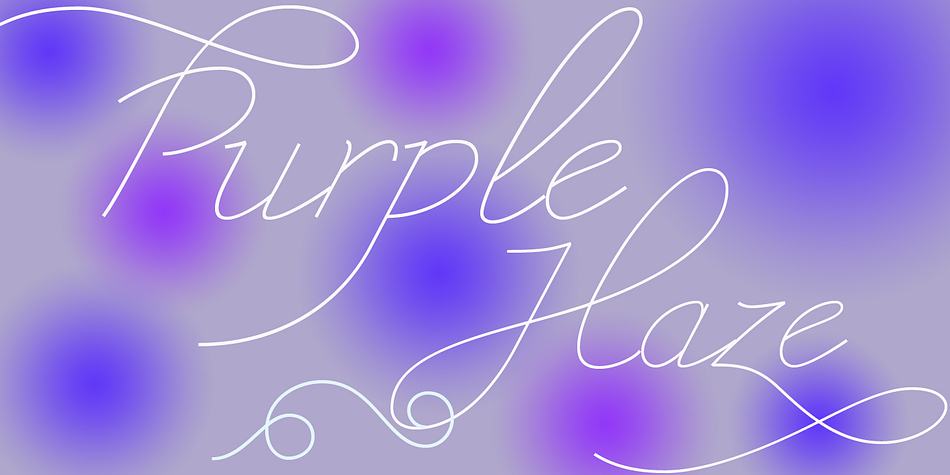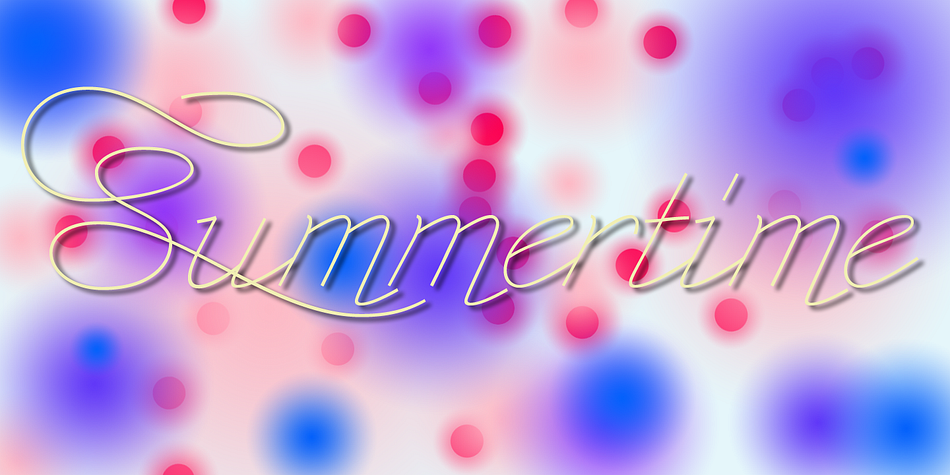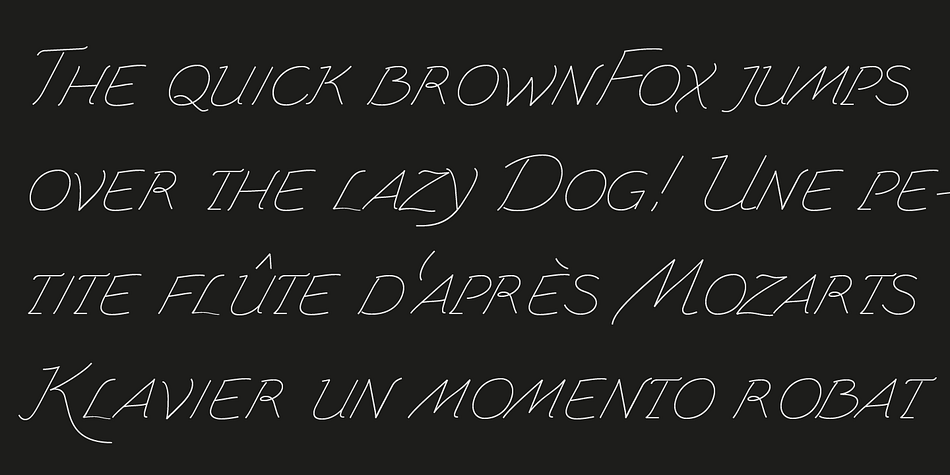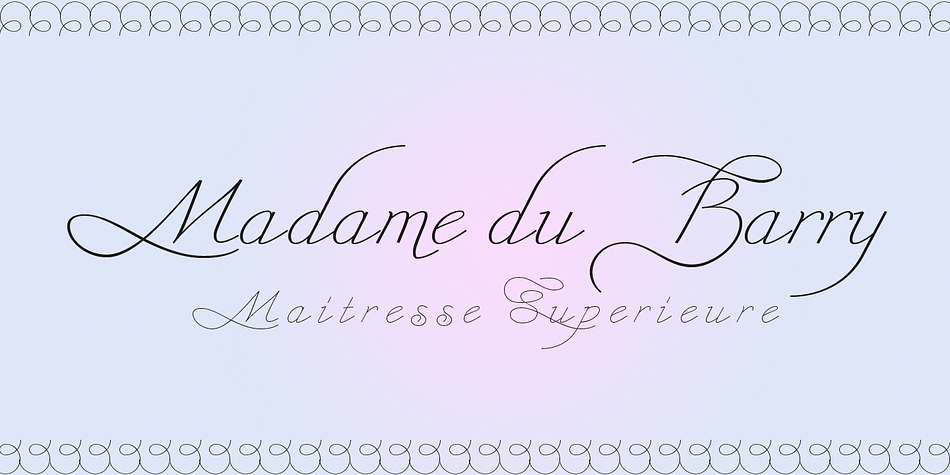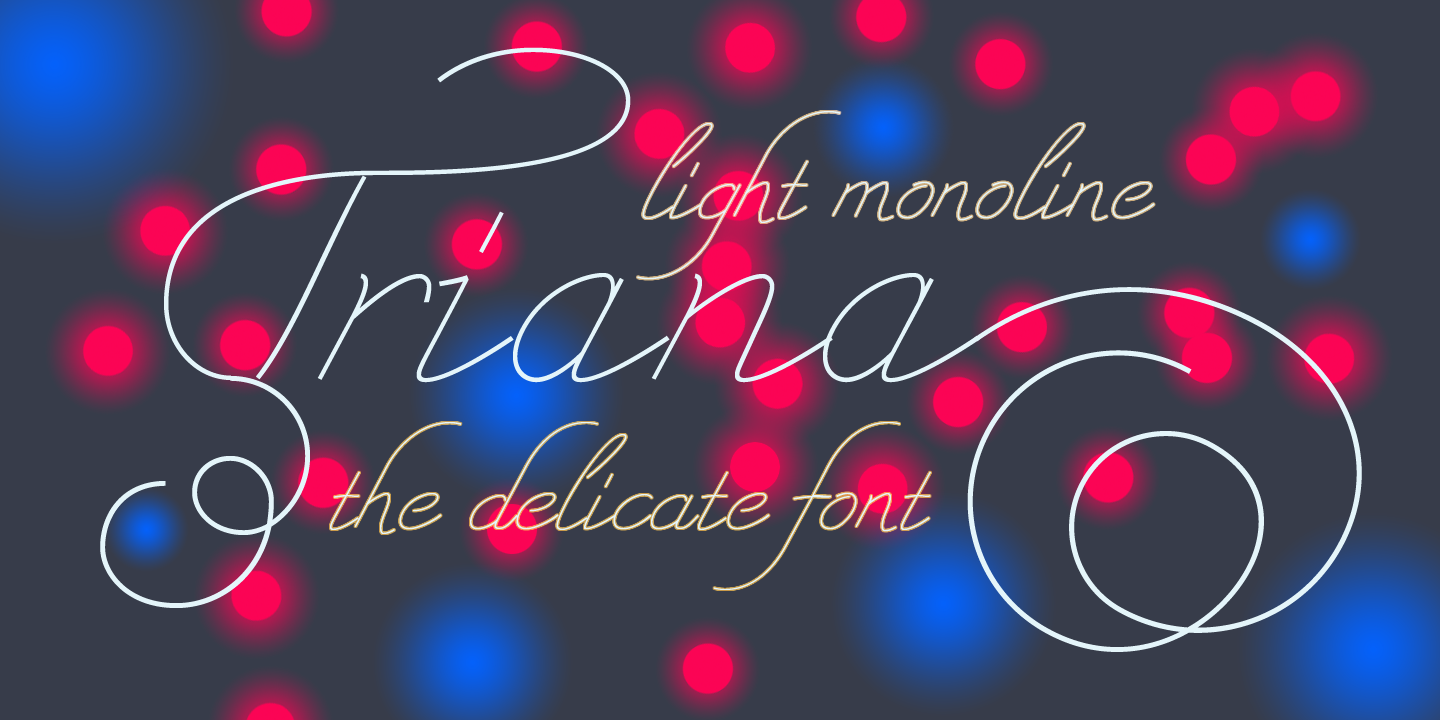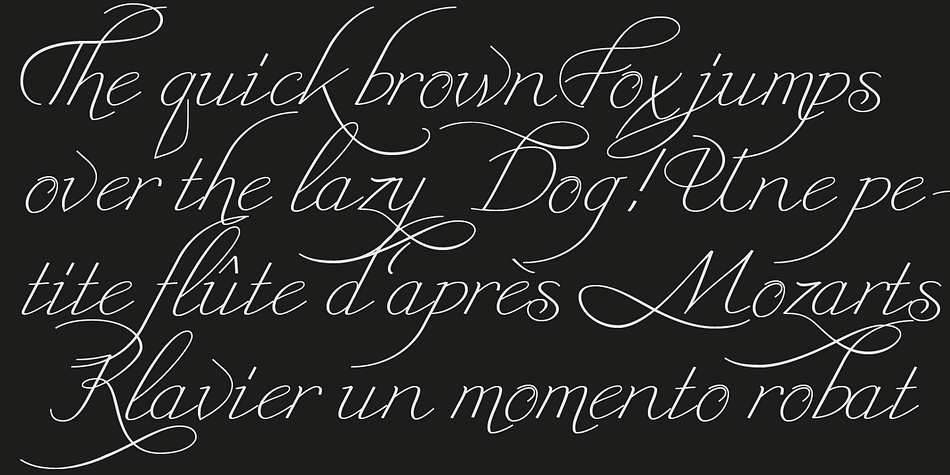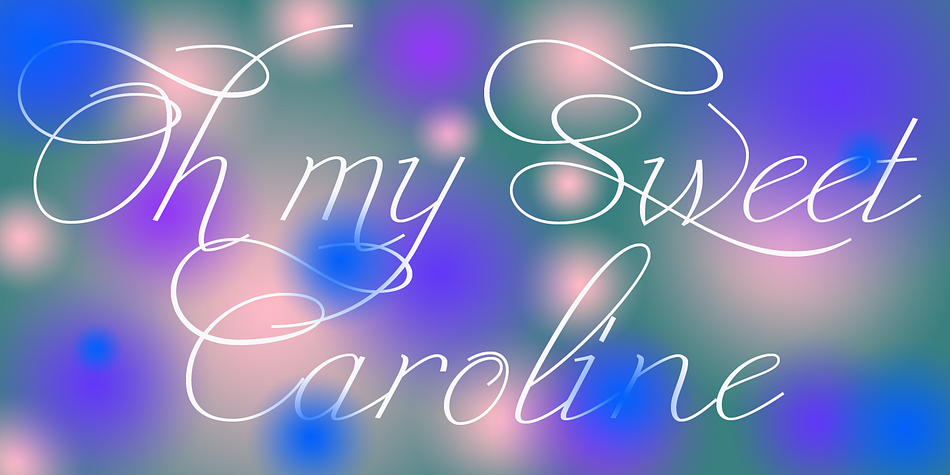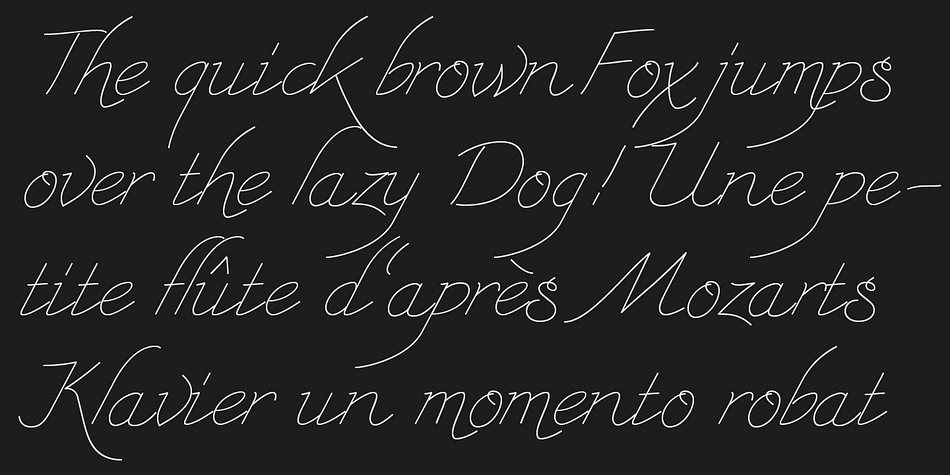
Triana is a dingbat and script font family. This typeface has seven styles and was published by Wiescher-Design.
On board of the Pinta the Spanish sailor, Rodrigo de Triana, was the first to see land (an out island of the Bahamas) during the night of the 11th and the 12th October 1492 at 2am. I thought to name a font after this daring Jewish-Spaniard!
Triana is a very thin monoline script. It comes in 5 (Triana-A-B-C-D-E) varieties. The additional Triana A Plus is the only one that has a little bit of contrast and is therefore not monoline but very useful to create that special typographical accent.
I also added another extra set Triana F lower case end letters and swirls (please check the keymap). The fonts can all be combined, meaning you can exchange a letter in a Triana-A-sentence with a letter or two or more of let’s say Triana-C and add lowercase endletters by converting the desired letter to a Triana-F letter.